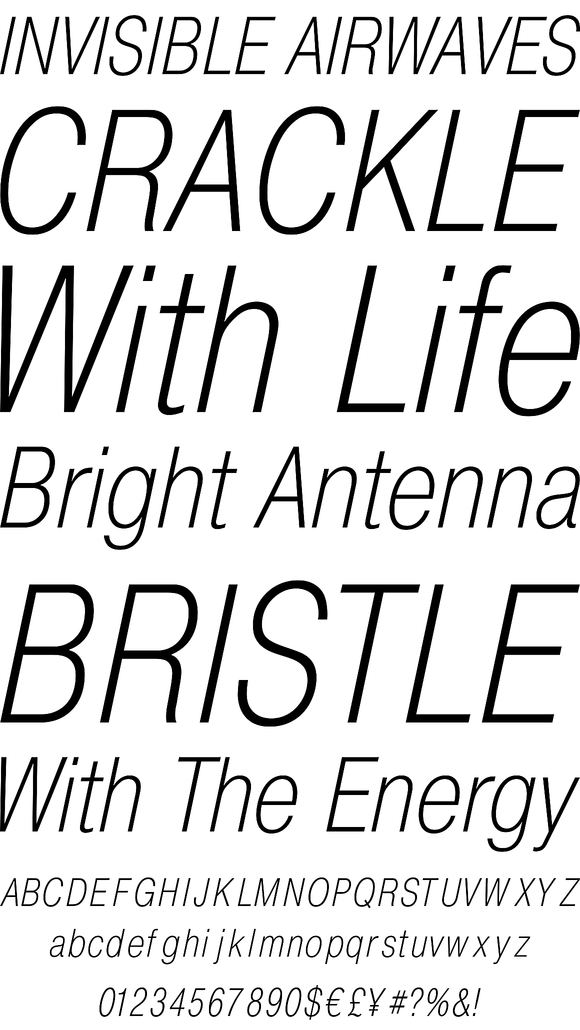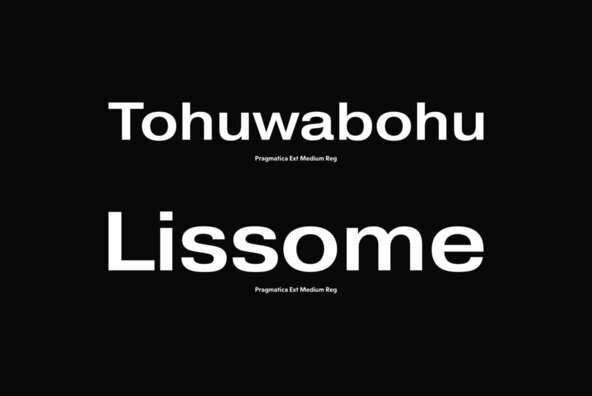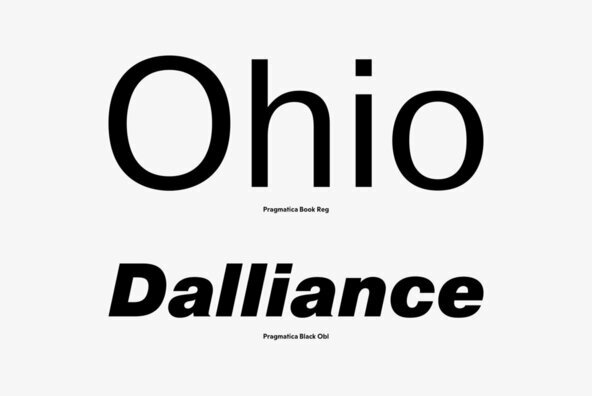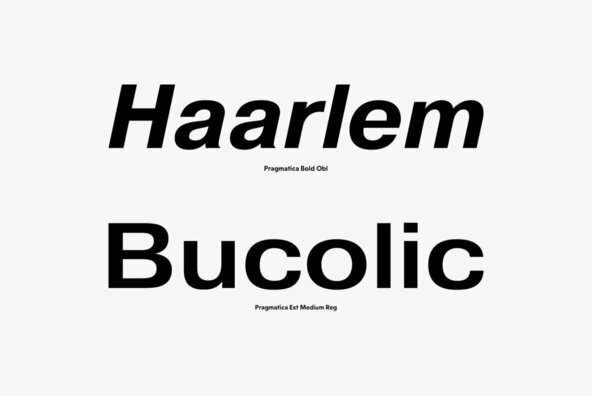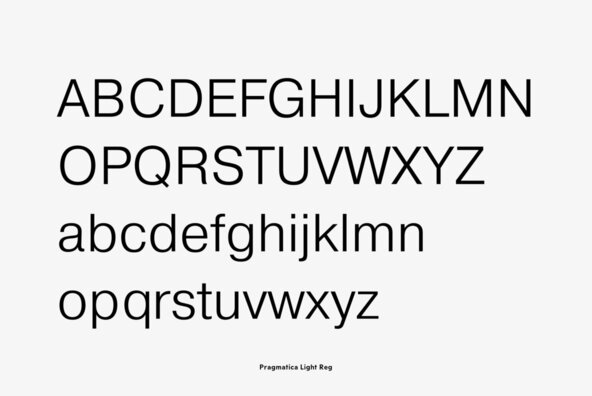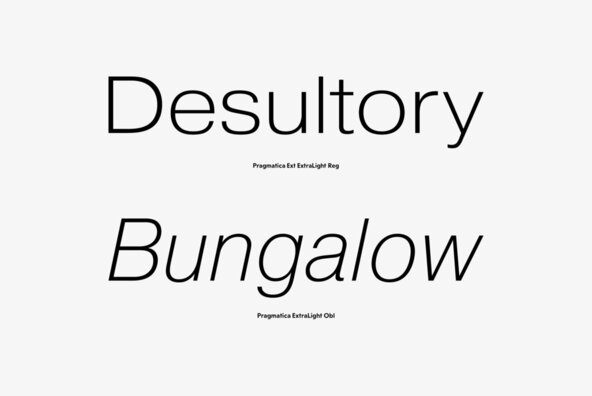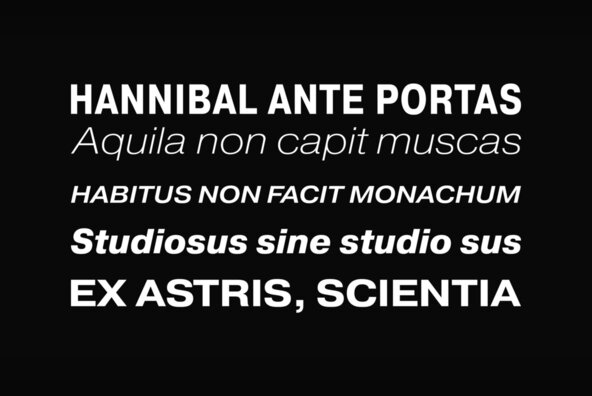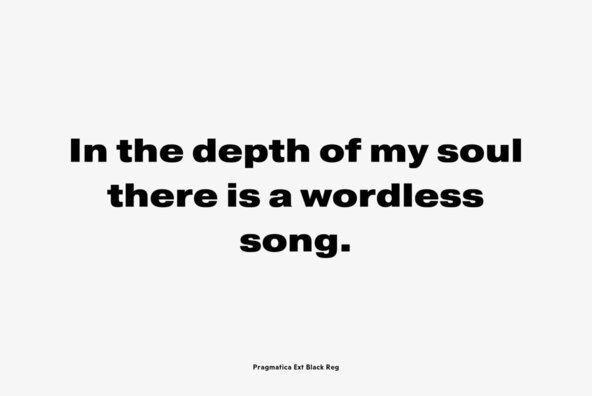
Pragmatica
The typeface was designed at ParaType (ParaGraph) in 1989-2004 by Vladimir Yefimov and Olga Chaeva. A spin-off from Encyclopedia-4 type family of the Polygraphmash type design bureau (1987, Vladimir Yefimov and Isay Slutsker). Inspired by Helvetica (Neue Haas Grotesk) of Haas typefoundry, 1957 by Eduard Hoffman and Max Miedinger. Based on the 19th century Grotesque designs, Helvetica brought a new level of mathematical accuracy to the sans serif category. Widely used for many applications, from magazines and books to advertising and headlines. 4 basic styles of Pragmatica were developed in 1989 by Vladimir Yefimov. Eight additional styles were developed in 2003 by Olga Chaeva. Condensed styles were developed in 1993-2004 by Vladimir Yefimov, Alexander Tarbeev and Manvel Shmavonyan, with participation of Dmitry Kirsanov. Extended styles were developed in 2004 by Olga Chaeva and Manvel Shmavonyan.